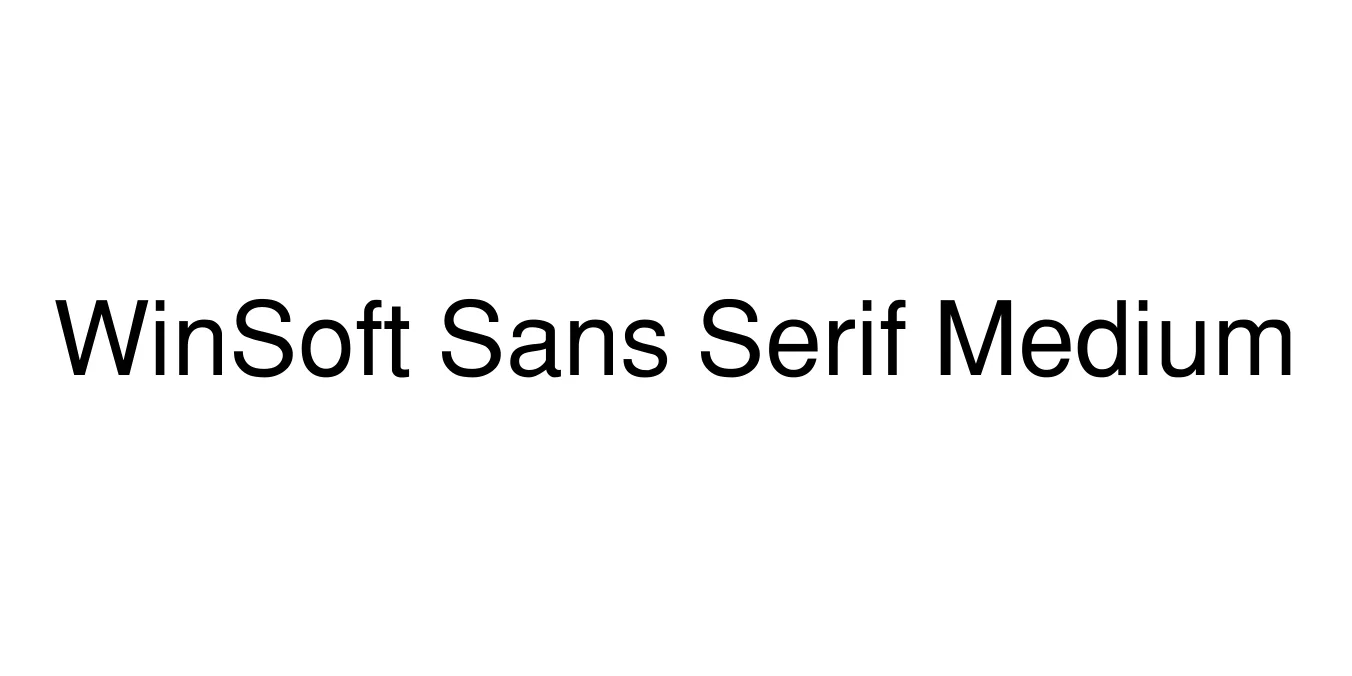
WinSoft Sans Serif Medium
Designed by WinSoft
WinSoft Sans Serif Medium is a robust and highly legible typeface developed by WinSoft, a company traditionally recognized for its expertise in software localization and complex script typography. This medium-weight variant provides a perfectly balanced stroke thickness, ensuring that characters remain distinct and readable even at smaller point sizes or on low-resolution digital screens.
Designed with a focus on neutral aesthetics, the font features geometric construction and clean terminals that avoid distracting flourishes. Historically utilized in professional documentation and software interfaces, it has become a reliable choice for designers who require a versatile sans-serif that supports both corporate branding and editorial design without overwhelming the visual hierarchy.
WinSoft Sans Serif Medium Best Uses
Ideal for professional business cards, official letterheads, and internal documentation.
Excellent for navigation menus, buttons, and high-readability body text.
Well-suited for magazine layouts, instructional manuals, and technical reports.